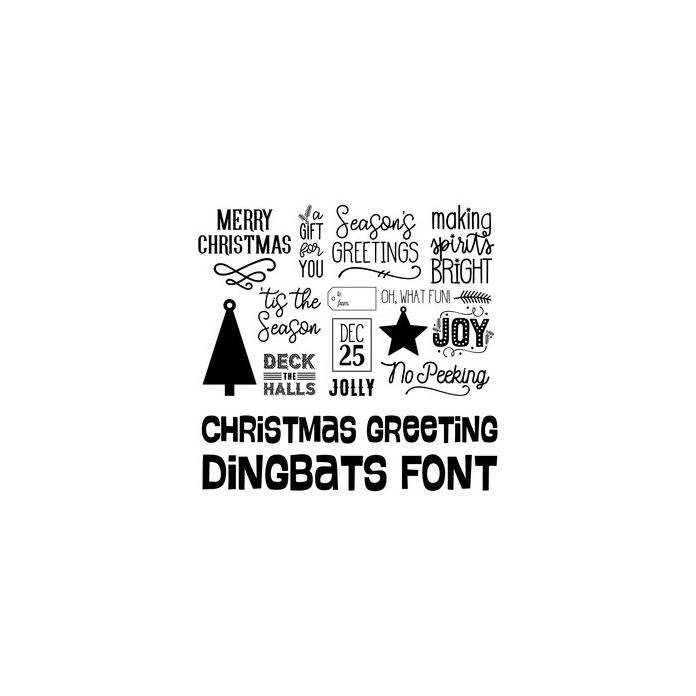
This cute dingbat font includes 26 Christmas Greetings and tags that you can type + cut. Make adorable Christmas cards and tags quickly and easily with the graphics in this fun font. For ideas and inspiration visit www.loriwhitlock.com and www.facebook.com/lori.whitlock.studio. For Lori's video tutorials visit www.youtube.com/loriwhitlock. For a full tutorials list visit www.loriwhitlock.com/blog/tutorials.